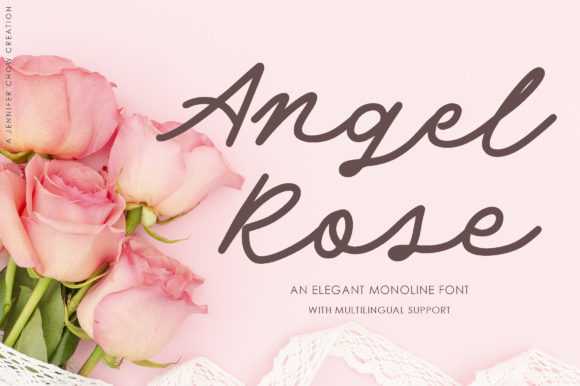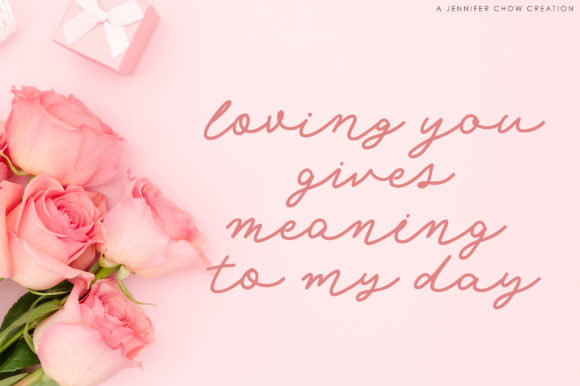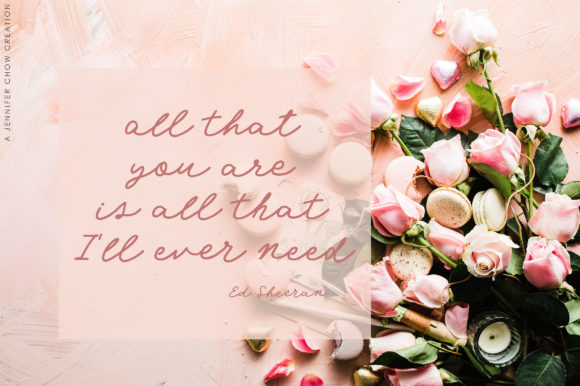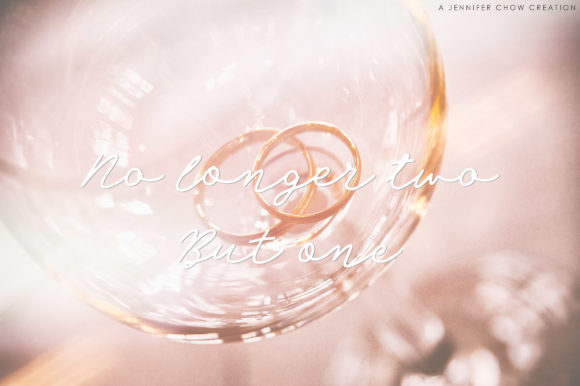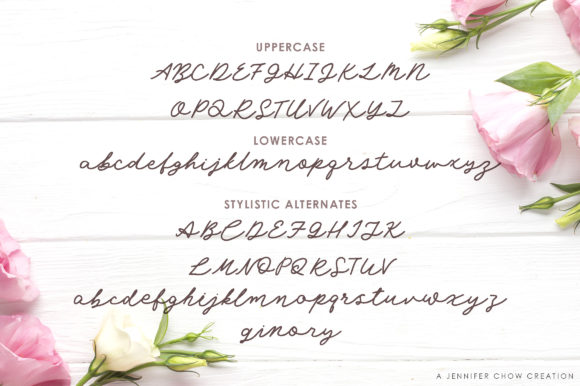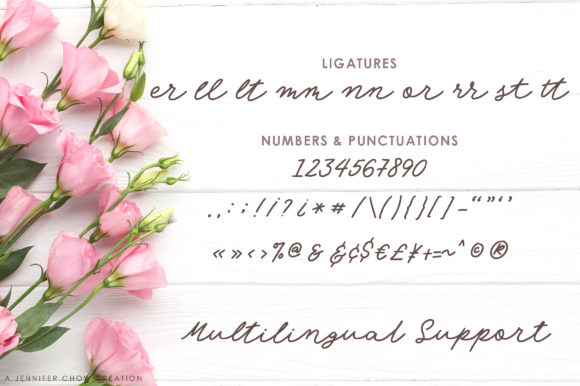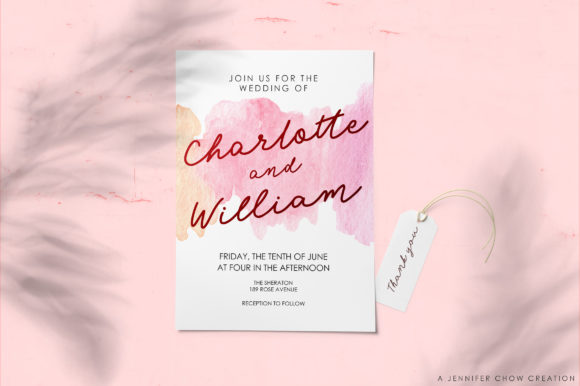
Angel Rose Font
About Angel Rose Font
Angel Rose is an elegant monoline script font. It features a unique style that will look amazing in wedding invitations, branding, social media posts and much more!